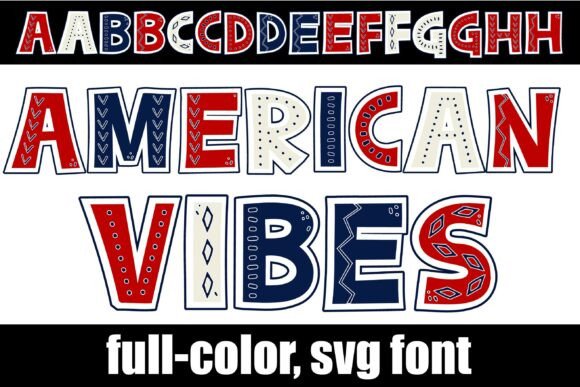
Discover the Ultimate American Vibes Font: A Fun and Colorful Addition to Your Design Toolbox
I’ll never forget the moment I stumbled upon the perfect font for a client’s project. I was working on a branding campaign for a summer-themed resort, and I needed a font that captured the essence of American summers – fun, vibrant, and full of personality. That’s when I discovered the American Vibes Font, a full-color, chunky sans serif font that instantly brought my design to life. In this article, I’ll share my experience with this amazing font, its features, and how to make the most of it in your designs.
- ✅ Unique and eye-catching full-color design that’s perfect for summer-themed projects or any design that needs a pop of personality.
- ✅ Includes an alt case of alternate colorings for each letter, accessible through your system’s glyph map or Silhouette’s glyph map.
Small Quirks and Limitations ⚠️
The Design Story Behind American Vibes Font
The American Vibes Font was created with the intention of capturing the essence of American summers – fun, vibrant, and full of personality. The designer wanted to create a font that would bring a touch of whimsy and playfulness to any design project. With its unique full-color design and alternate colorings, American Vibes Font is perfect for summer-themed projects, branding campaigns, and any design that needs a pop of personality.